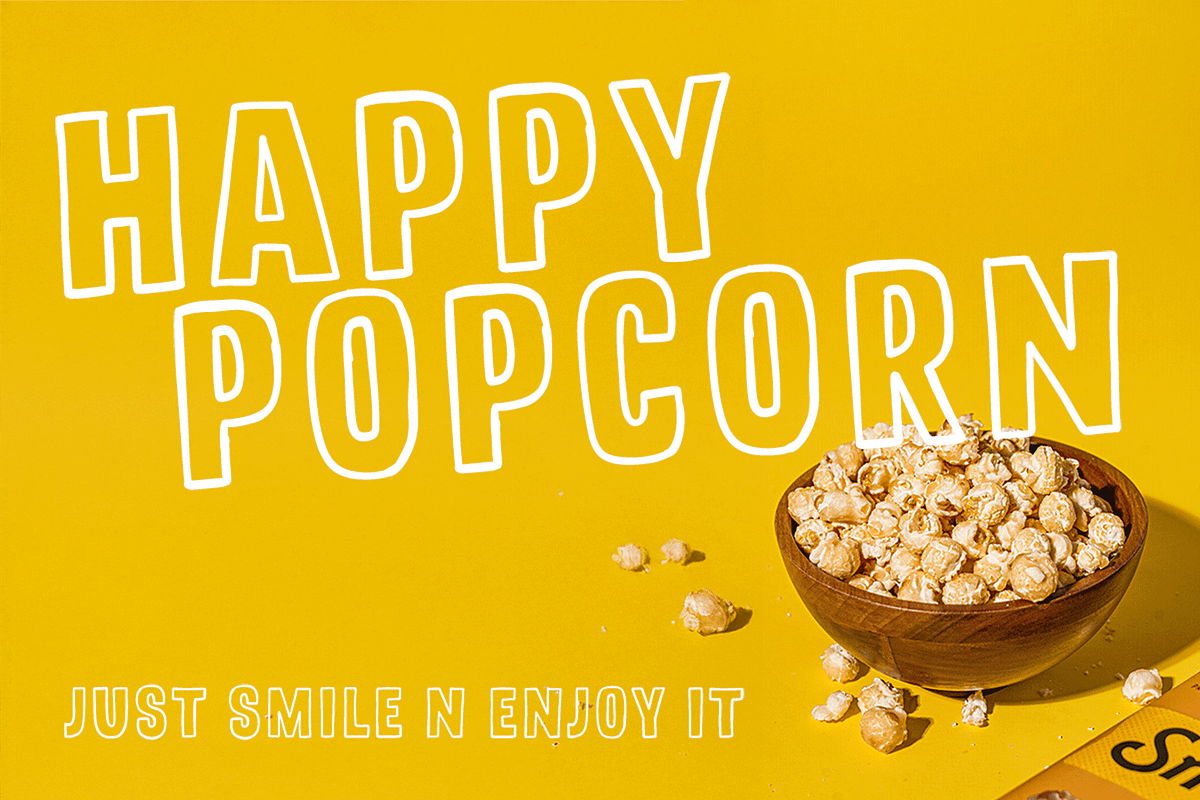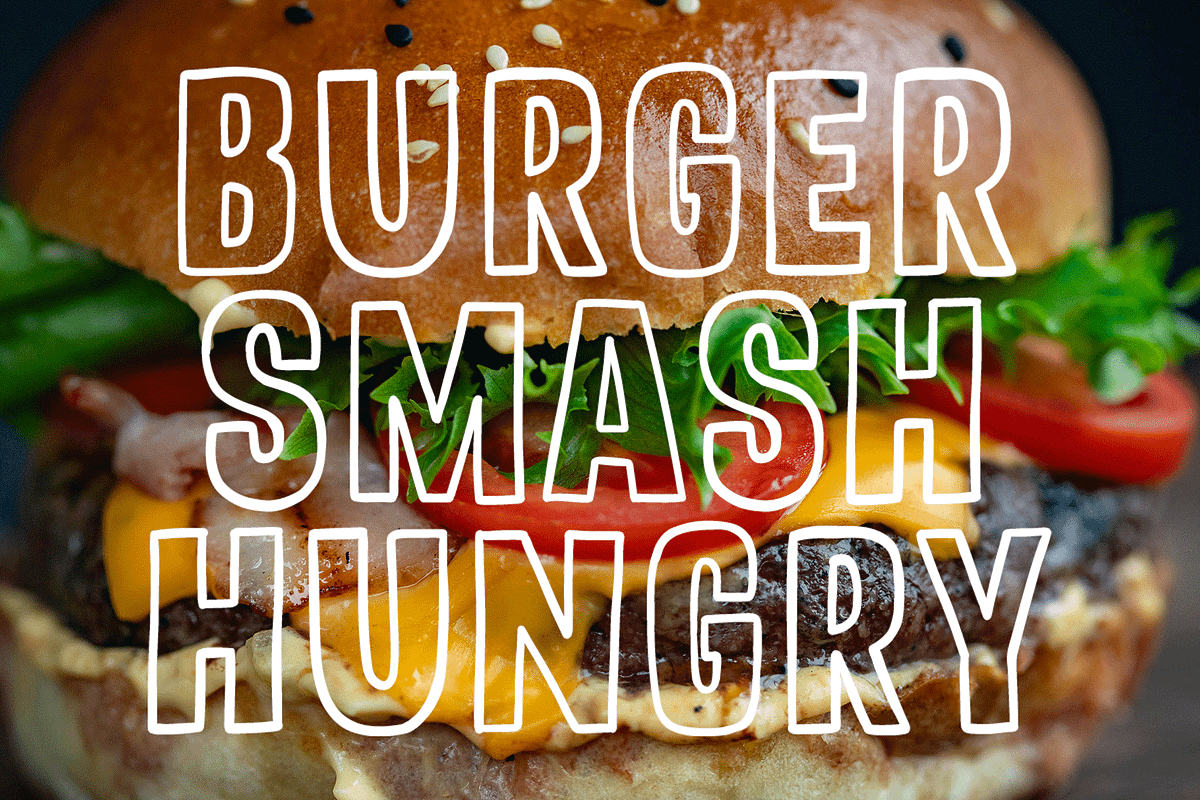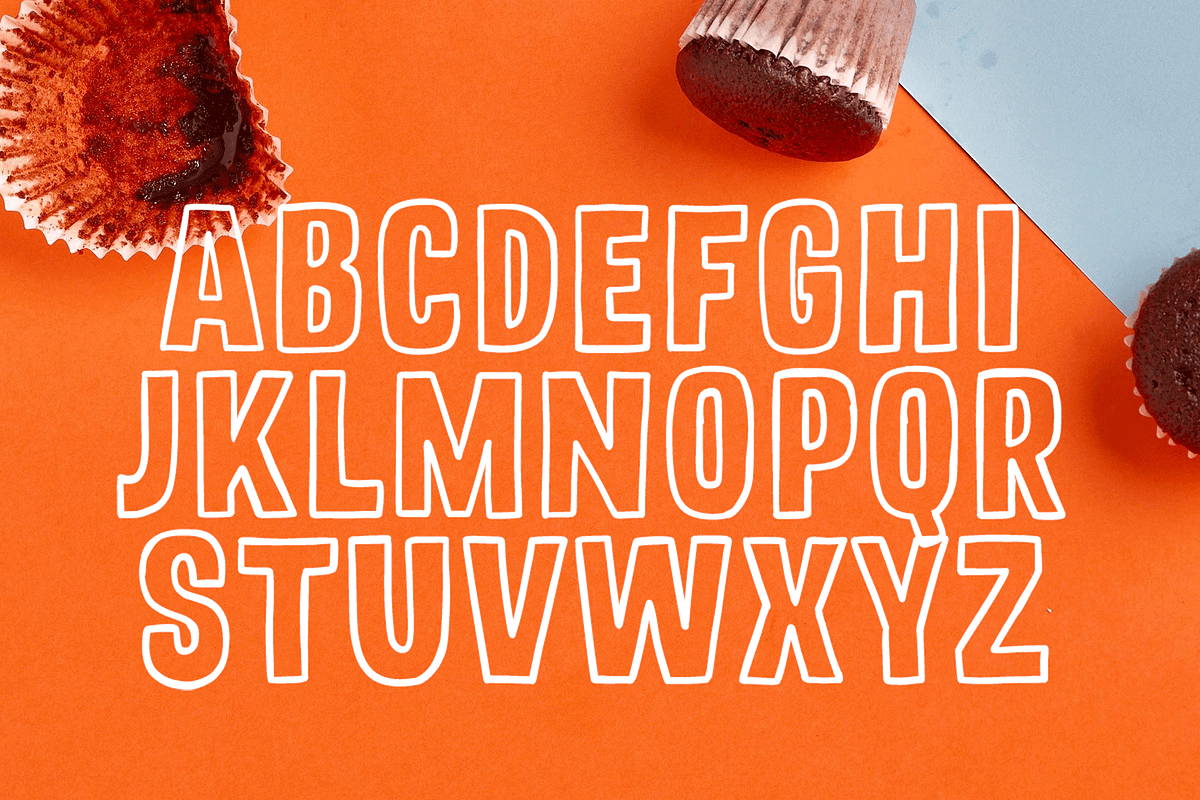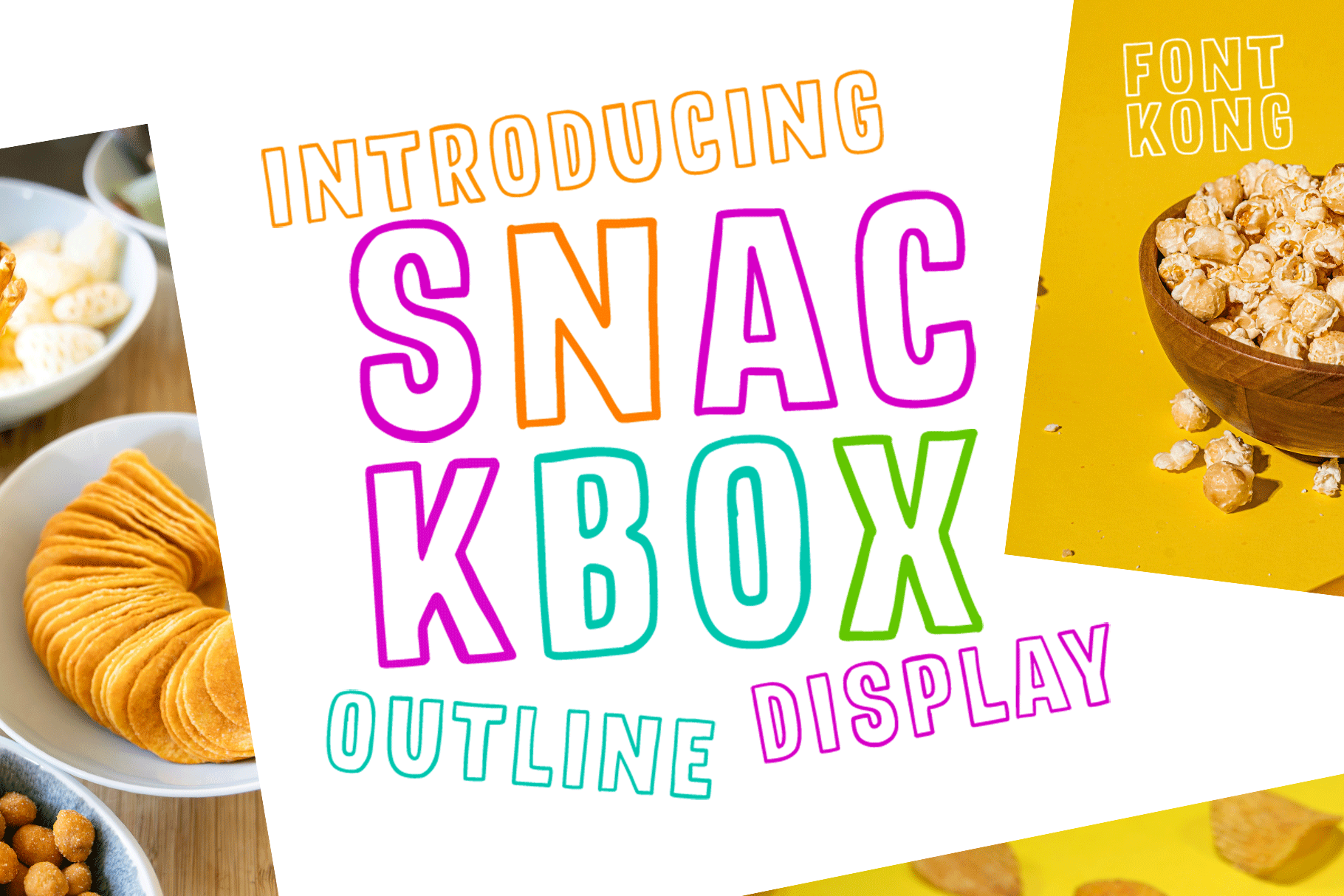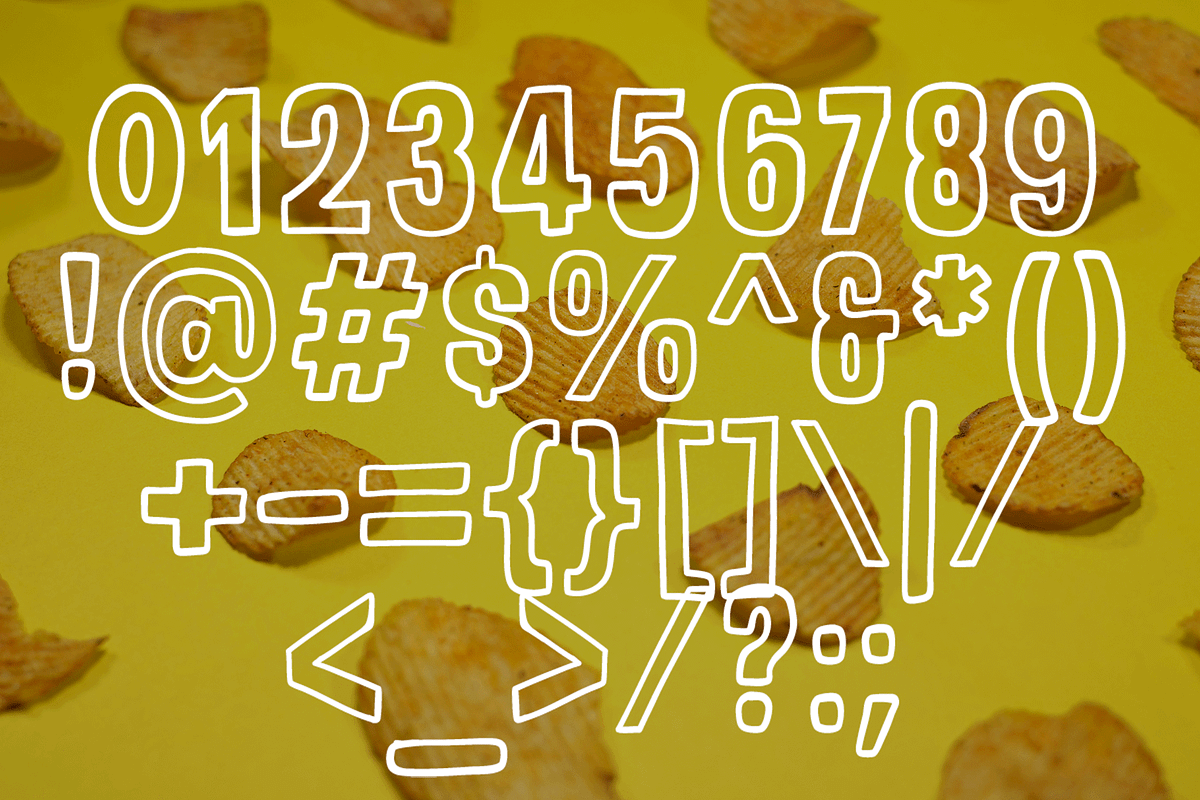
Snackbox – Fun Outline Display Font
Snackbox is a quirky and bold outline display font that brings a burst of personality to your designs. With chunky letterforms wrapped in clean outlines, this font is perfect for snack packaging, playful logos, children’s books, posters, and any project that needs a touch of fun and energy.
Whether you're designing for print or digital, Snackbox delivers high visibility and charm, making it ideal for eye-catching headlines and cheerful branding.